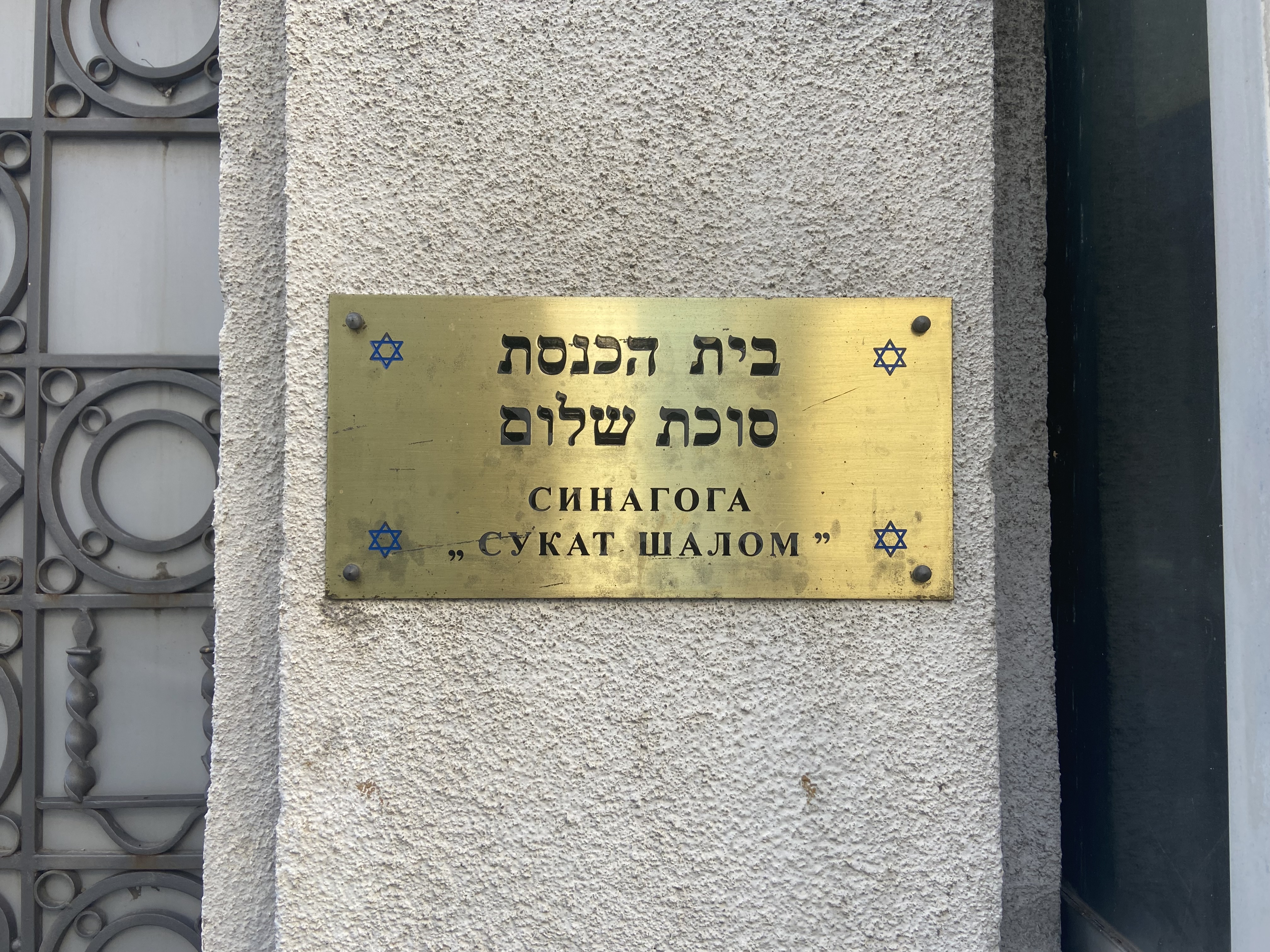
Sinagoga Sukat Šalom
A building sign written in Hebrew and Serbian Cyrillic. It uses quotation marks „...” that are typical for countries like Serbia, Croatia, Bosnia, Hungary, Poland, Romania and the Netherlands.